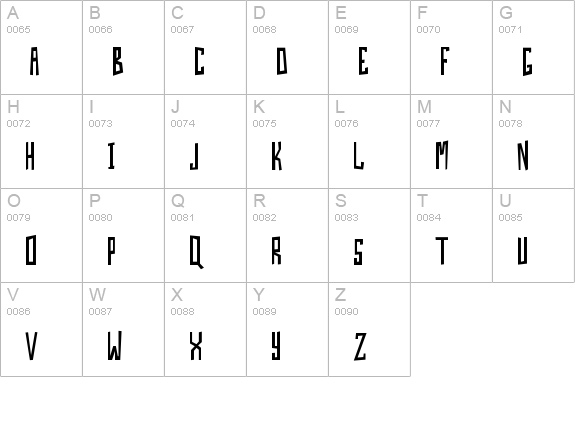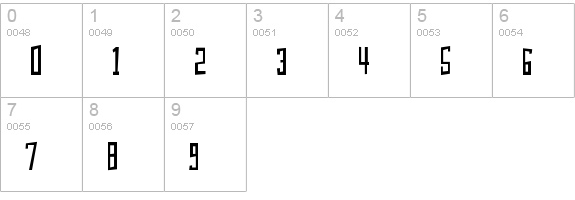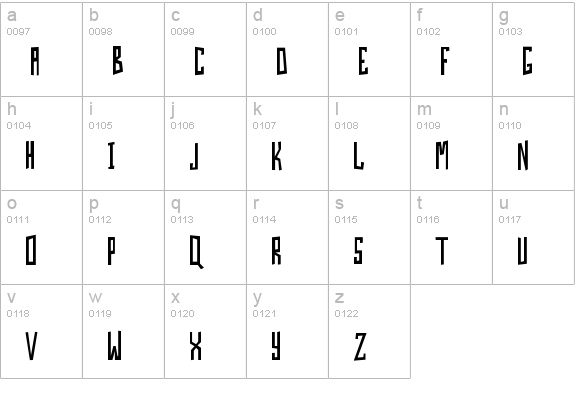
Skin and Bones Font Details
Skin and Bones is a free for personal use font in the Fancy > Comic category, designed by Darrell Flood. It has been downloaded 45 times and is available for Windows, Mac and Linux.
Skin and Bones font is a modern and sleek typeface that captures attention with its unique and edgy design. With its sharp angles and minimalist style, this font exudes a sense of sophistication and elegance. Perfect for branding, logos, and editorial design, Skin and Bones font adds a touch of contemporary flair to any project.